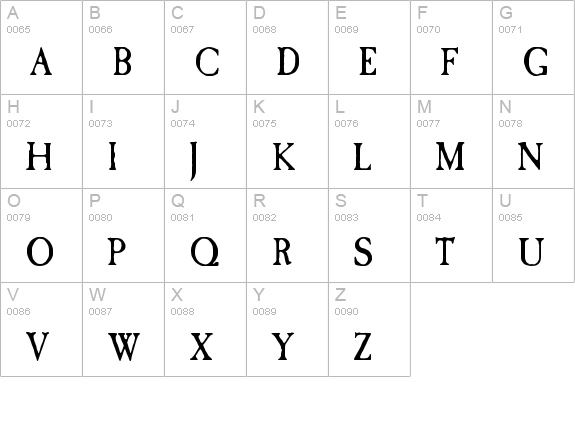
Caslon-Antique-Display-Regular Font Details
Caslon-Antique-Display-Regular is the standard, neutral variant in the Caslon typeface family \xE2\x80\x94 well suited to general body text, paragraphs, and standard typographic work.
Caslon Antique Display Regular is a classic and elegant vintage font that exudes timeless charm and sophistication. With its intricate details and unique serifs, this font is perfect for creating eye-catching headlines, logos, and branding materials. The versatile nature of Caslon Antique Display Regular makes it suitable for a wide range of design projects, from invitations to packaging to posters. Best of all, Caslon Antique Display Regular is available for free download at FontsMarket.com. This means you can easily access this beautiful font and incorporate it into your designs without any cost. Don't miss out on the opportunity to enhance your creative projects with the exquisite Caslon Antique Display Regular font, now freely available for you to use and enjoy.